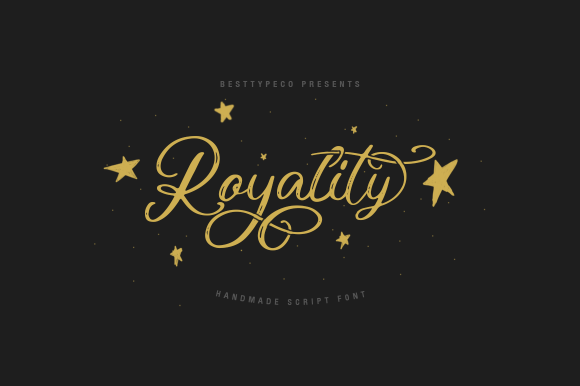
Behold, the Royality font – a captivating script masterpiece that exudes elegance and charm. With its clean, thin, and smooth lines, this font will add a touch of sophistication to all your creative endeavors.
Royality is a versatile font, perfect for invitations, branding, logos, wedding invitations, social media posts, and any project that calls for a touch of handwritten beauty. Its delicate strokes and graceful curves evoke a sense of timeless elegance, making it an ideal choice for creating designs that are both eye-catching and enduring.
Whether you're a seasoned designer or just starting out, Royality is a font that will quickly become your go-to choice for adding a touch of magic to your work. Its PUA encoding makes it incredibly easy to access all of the font's glyphs and swashes, giving you endless possibilities for customization.
Dive into the world of Royality and unlock a treasure trove of creativity. Let your imagination soar as you craft stunning designs that leave a lasting impression. Experience the joy of creating with a font that truly embodies the essence of beauty and grace.
Step into the world of Royality and let your creativity shine brighter than ever before.